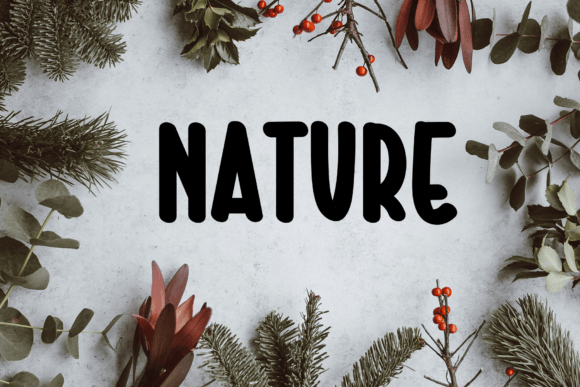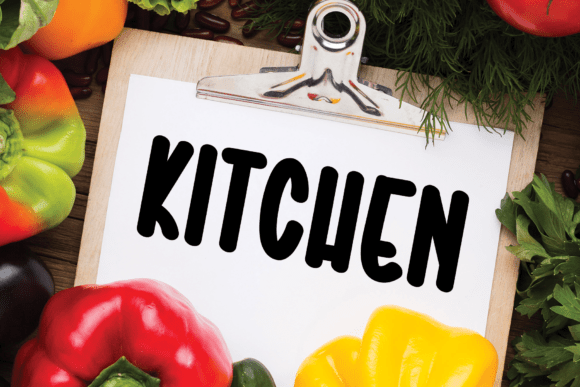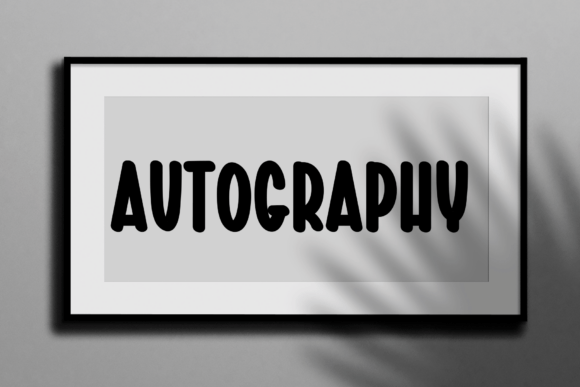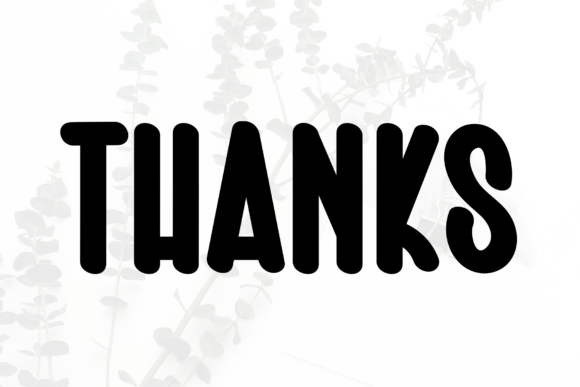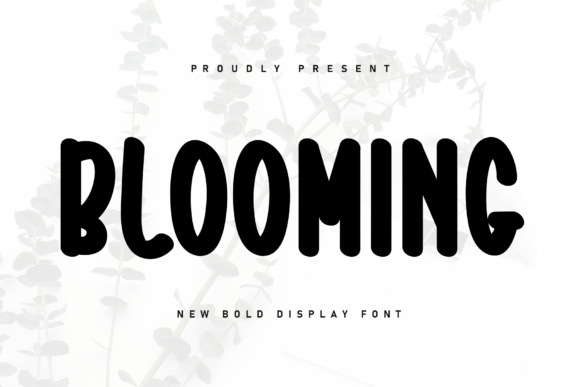
The Blooming Font: A Handwritten Gem for Creative Projects
I’ll never forget the time I was working on a wedding invitation design project, and my client asked for a font that was both elegant and casual. I scoured the internet, tried countless fonts, but nothing seemed to fit the bill. That was until I stumbled upon the Blooming font. With its relaxed and sporty feel, it was love at first sight! In this article, I’ll share my experience with the Blooming font, its features, and how to make the most of it in your designs.
A Personal Review: What I Love About Blooming
The Blooming font has quickly become one of my go-to fonts for creative projects. Here’s what I love about it:
- ✨ Unique handwritten feel: Blooming looks like it was drawn with a marker, giving it a personal and human touch.
- ✅ Versatile: It’s suitable for a wide range of projects, from branding and logos to wedding supplies, greeting cards, and marketing promotions.
- 💃 Luxurious yet casual: Blooming strikes the perfect balance between elegance and casualness, making it perfect for designs that need to look high-end but still approachable.
- 🎨 OpenType features: The font comes with a range of OpenType features, including glyphs and stylistic alternates, which allow for endless creative possibilities.
While I adore the Blooming font, there are a few quirks to be aware of:
- 🤔 Limited use in very formal designs: While Blooming is elegant, it may not be the best choice for very formal designs, such as corporate reports or academic papers.
- ⚠️ Some letters may require manual kerning: As with any handwritten font, some letters may require manual kerning to achieve optimal spacing.
The Story Behind Blooming
The Blooming font was designed by a talented type designer who wanted to create a font that captured the essence of handwritten text. Inspired by the beauty of imperfection, the designer crafted a font that’s both elegant and casual. While the designer’s story is shrouded in mystery, one thing is clear: Blooming is a font that’s here to stay.